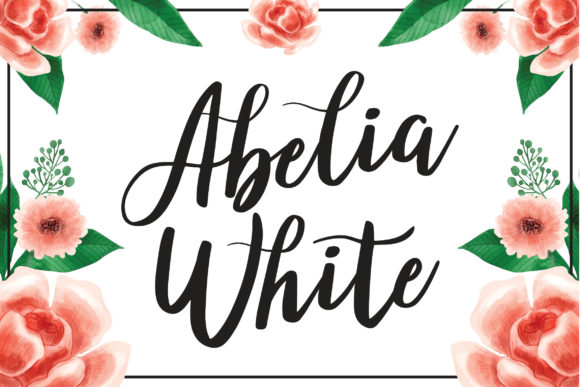
Introducing Abelia White Font: Elegance and Versatility in Handwritten Style
In the world of typography, fonts play a crucial role in conveying the tone and personality of a brand or design. For those seeking an elegant, modern, and luxurious feel, Abelia White Font stands out as an exceptional choice. This handwritten font combines casual charm with readability, making it incredibly versatile for various design applications. Whether you’re working on letterheads, titles, stationery, or any crafty project, Abelia White is sure to impress.
The Characteristics of Abelia White Font
Abelia White Font is distinguished by its elegant and modern handwritten style. It exudes a sense of luxury, making it perfect for designs that require a touch of sophistication. Despite its luxurious feel, the font maintains a down-to-earth charm, ensuring it’s approachable and relatable. This balance of elegance and charm is what sets Abelia White apart from other fonts.
One of the key features of Abelia White Font is its readability. In an era where fonts are often criticized for being too ornate or difficult to read, Abelia White strikes the perfect balance. Its clear and flowing script makes it easy on the eyes, allowing your audience to engage with your content without any distractions.
The versatility of Abelia White Font is one of its most compelling attributes. Designers and crafters can use it across a wide range of projects. Here are a few ideas where Abelia White truly shines:
- Letterheads and Business Correspondence: Add a touch of elegance to your professional communications with Abelia White. Its sophisticated look makes it ideal for corporate branding, especially for businesses in creative industries or those looking to stand out from the conventional.
- Titles and Headings: For designers working on websites, blogs, or digital magazines, Abelia White can add a luxurious feel to your titles and headings. Its modern appeal ensures your content stands out.
- Stationery and Invitations: For crafters and DIY enthusiasts, Abelia White can elevate your stationery designs, invitations, and greeting cards. Its charm and elegance make any paper product feel special.
- Branding and Logotypes: For businesses looking to create a memorable brand identity, Abelia White can be a valuable asset. Its unique style can help in creating a distinctive logotype that reflects the brand’s personality.
Why Choose Abelia White Font?
There are several reasons why designers and crafters should consider Abelia White Font for their projects:
- Unique Style: In a sea of generic fonts, Abelia White offers a unique and distinctive style that can make your designs stand out.
- Ease of Use: Despite its luxurious look, Abelia White is incredibly easy to read and use in various design contexts.
- Flexibility: Its versatility means you can use it across different types of projects, from professional to personal.
- Modern Appeal: For designs that require a modern touch, Abelia White is an excellent choice. It feels contemporary and current.
Abelia White Font is a remarkable addition to any designer’s or crafter’s toolkit. Its elegant and modern handwritten style, combined with its luxurious feel and casual charm, makes it a versatile choice for a wide range of projects. Whether you’re aiming to create professional-looking letterheads, stylish stationery, or engaging digital content, Abelia White Font can help you achieve your design goals with ease. Its unique blend of sophistication and readability ensures that your designs will not only look great but also communicate effectively with your audience.
So, if you’re on the lookout for a font that can add a touch of elegance and modernity to your projects, consider giving Abelia White Font a try. Its benefits are sure to make it a favorite in your collection, providing you with the tools to create stunning designs that leave a lasting impression.